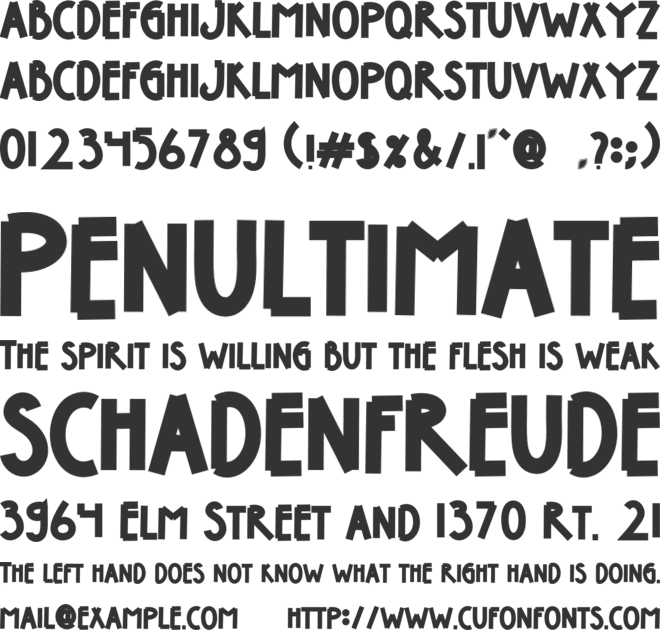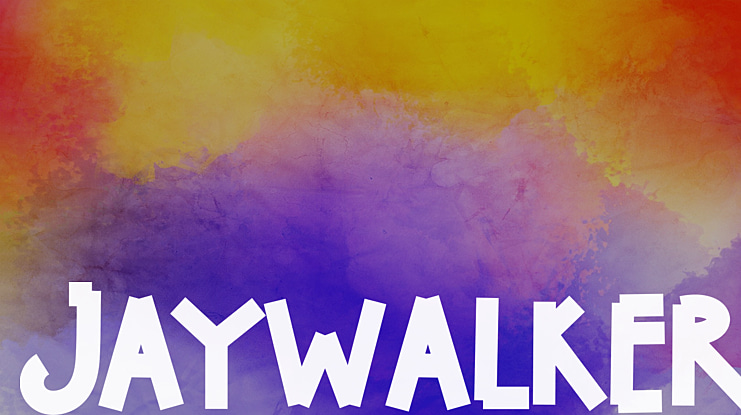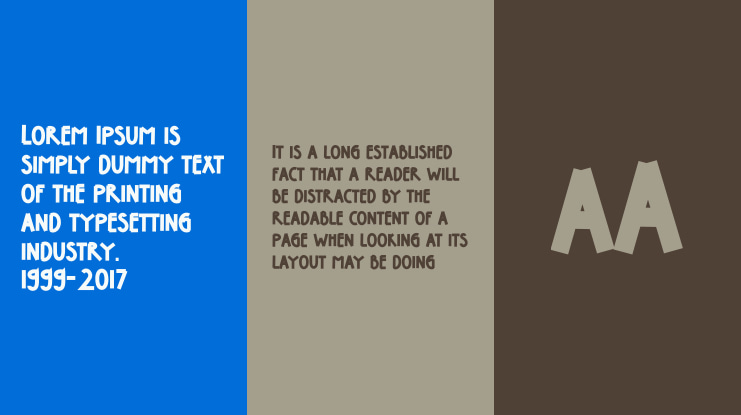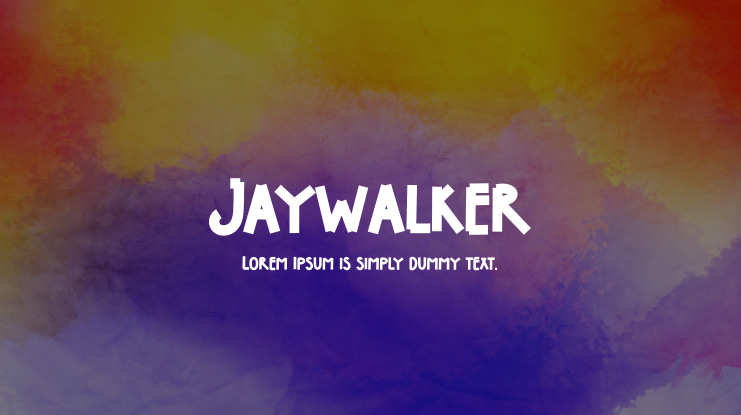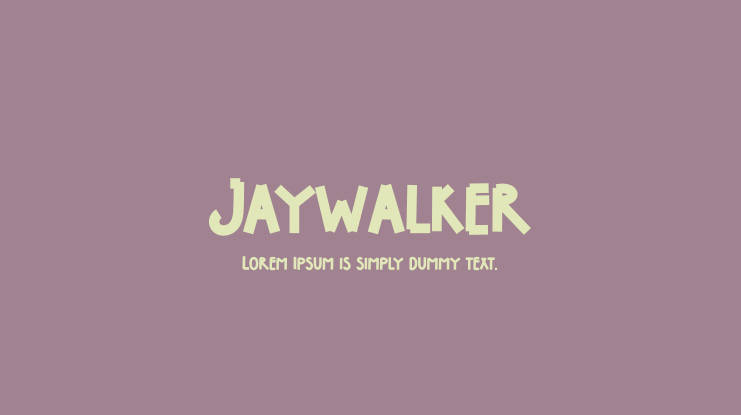
Jaywalker Font
Jaywalker is a cool and friendly display font. No matter the topic, this font will be an incredible asset to your fonts’ library, as it has the potential to elevate any creation.